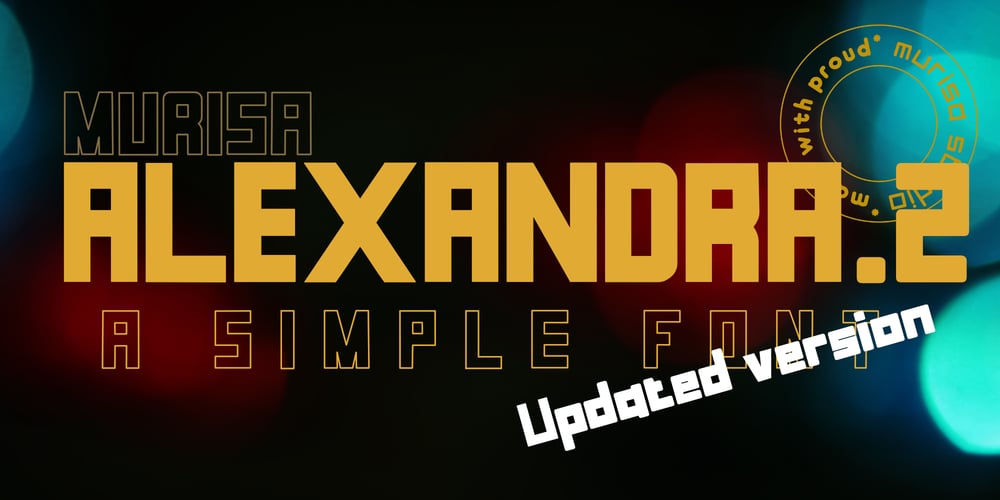
Murisa Alexandra Font Family was designed by Lili and published by Murisa Studio. Murisa Alexandra contains 2 styles and family package options. Murisa Alexandra is one of our next proud fonts. Combining a strong and strong font style with a beautiful and charming calligraphy style, Alexandra is the perfect combination. You will be presented with a variety of font styles contained therein. Starting from the font that is sturdy and tough, there are also beautiful and charming swash fonts. Coupled with decorative fonts that are beautiful to look at. Not only that, this font is also equipped with an outline font type. So many kinds of fonts in it make you more and more expressive. Explore this font in such a way that it creates the perfect piece of work. Alexandra, a font, a perfection.. Get it now